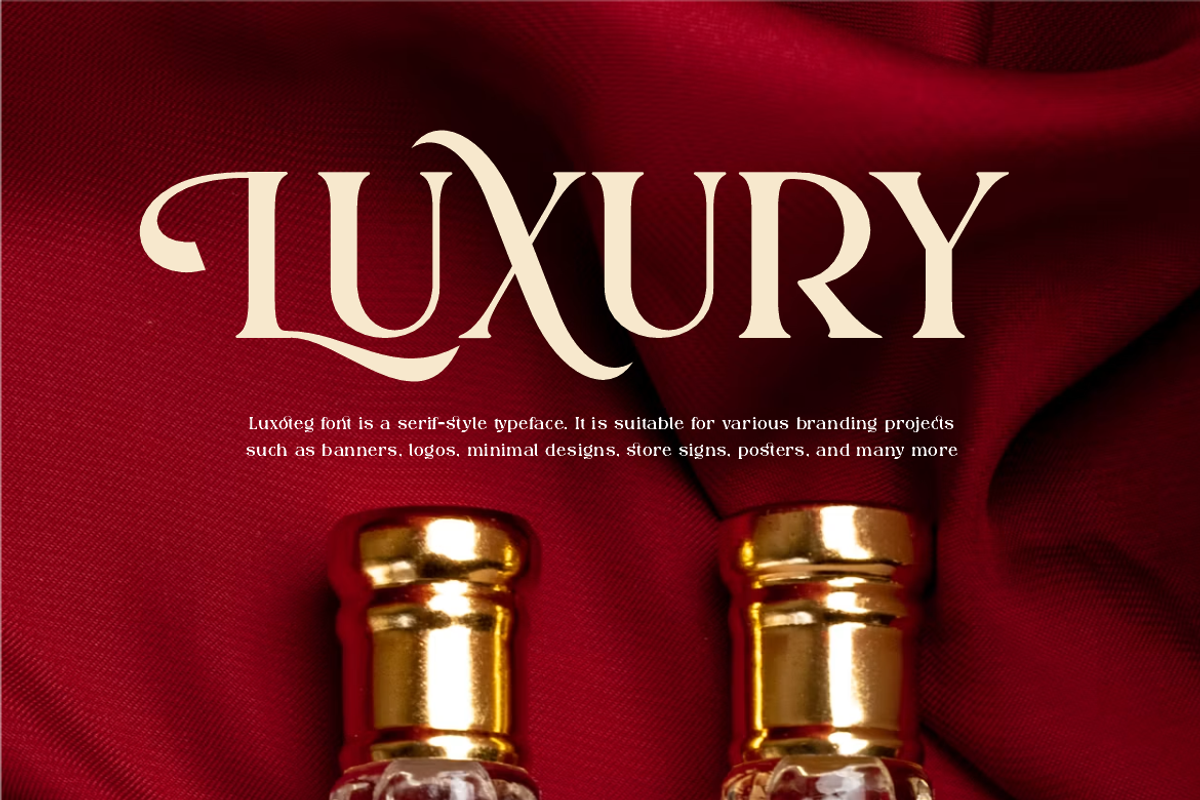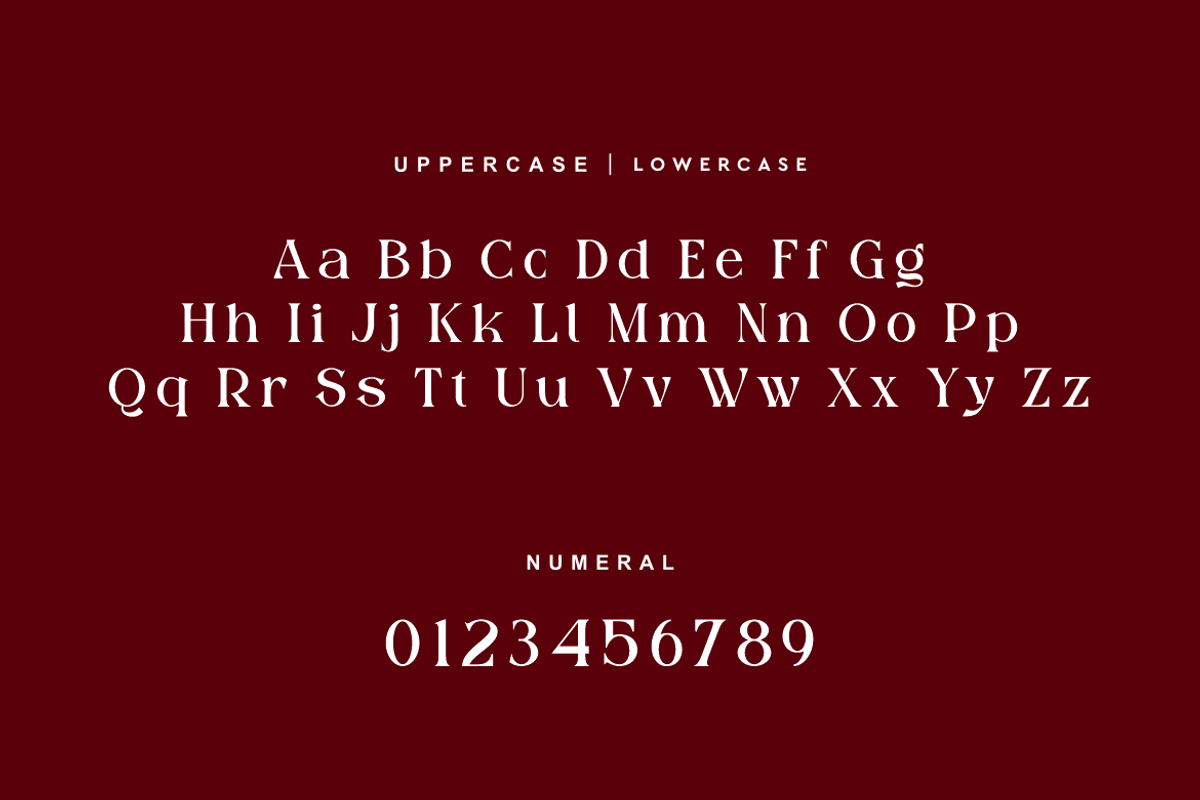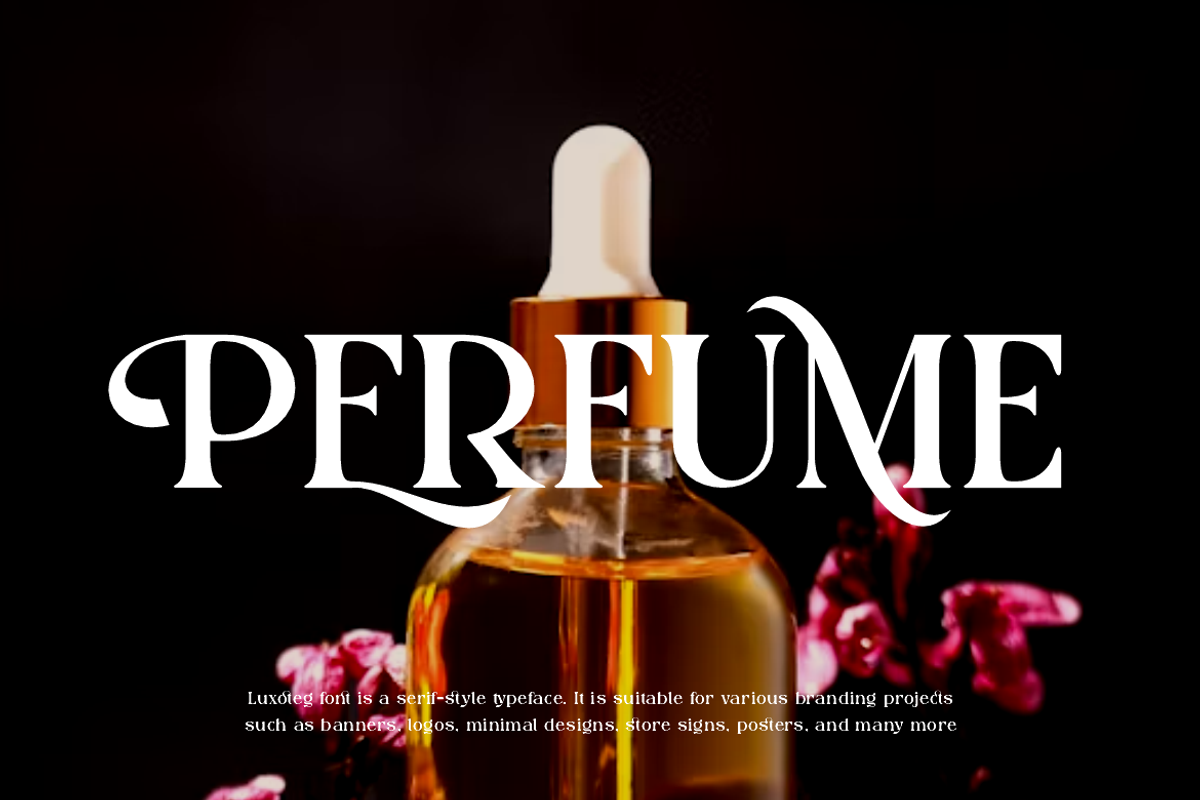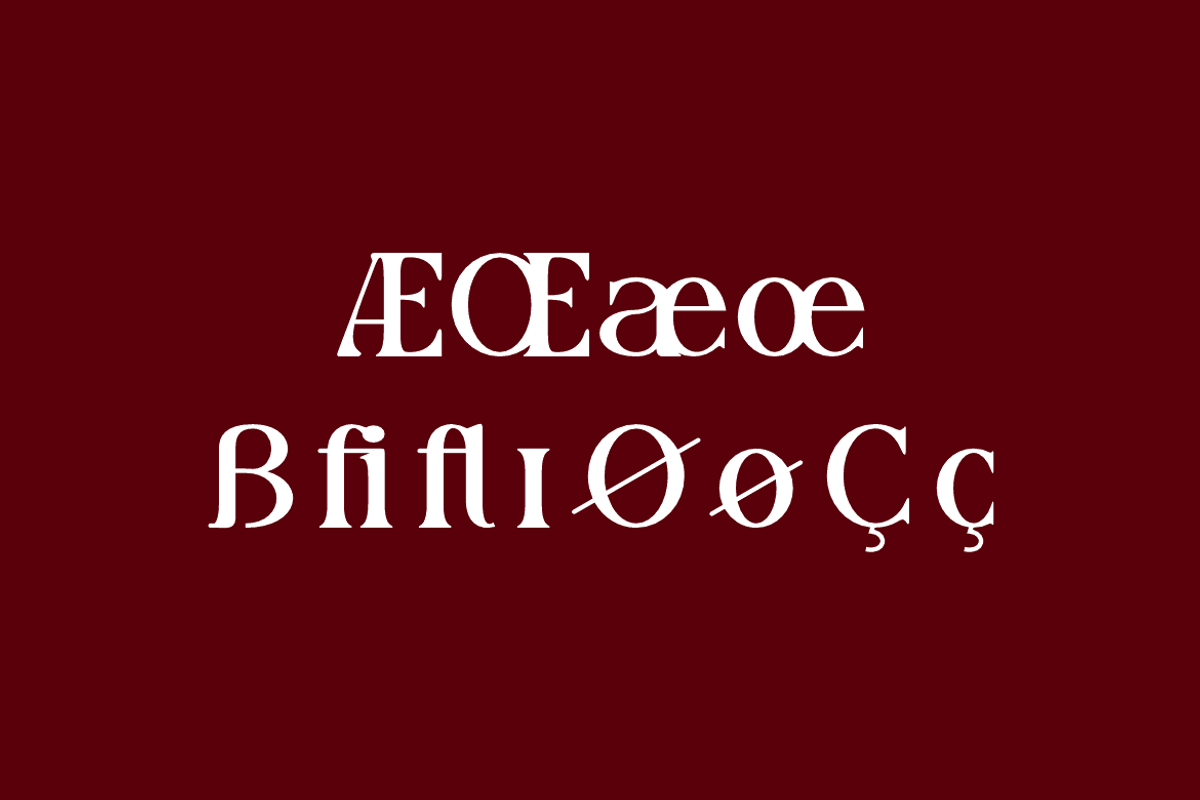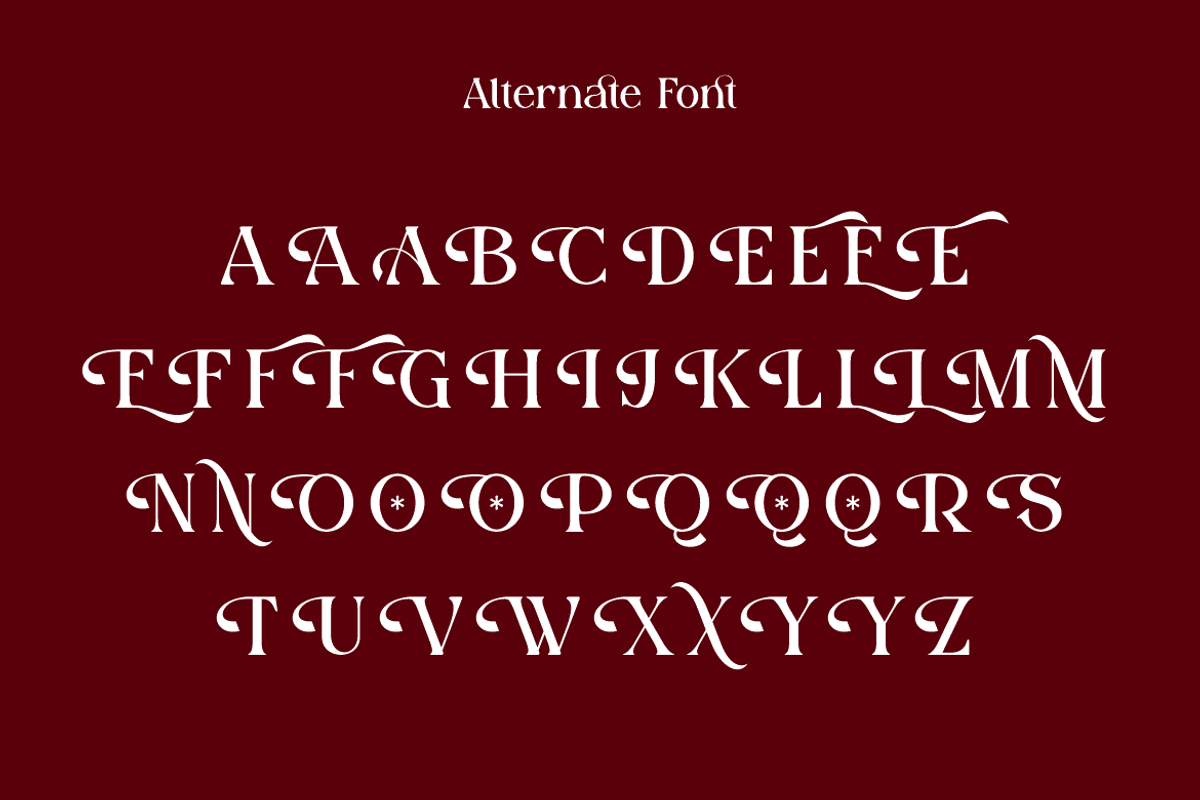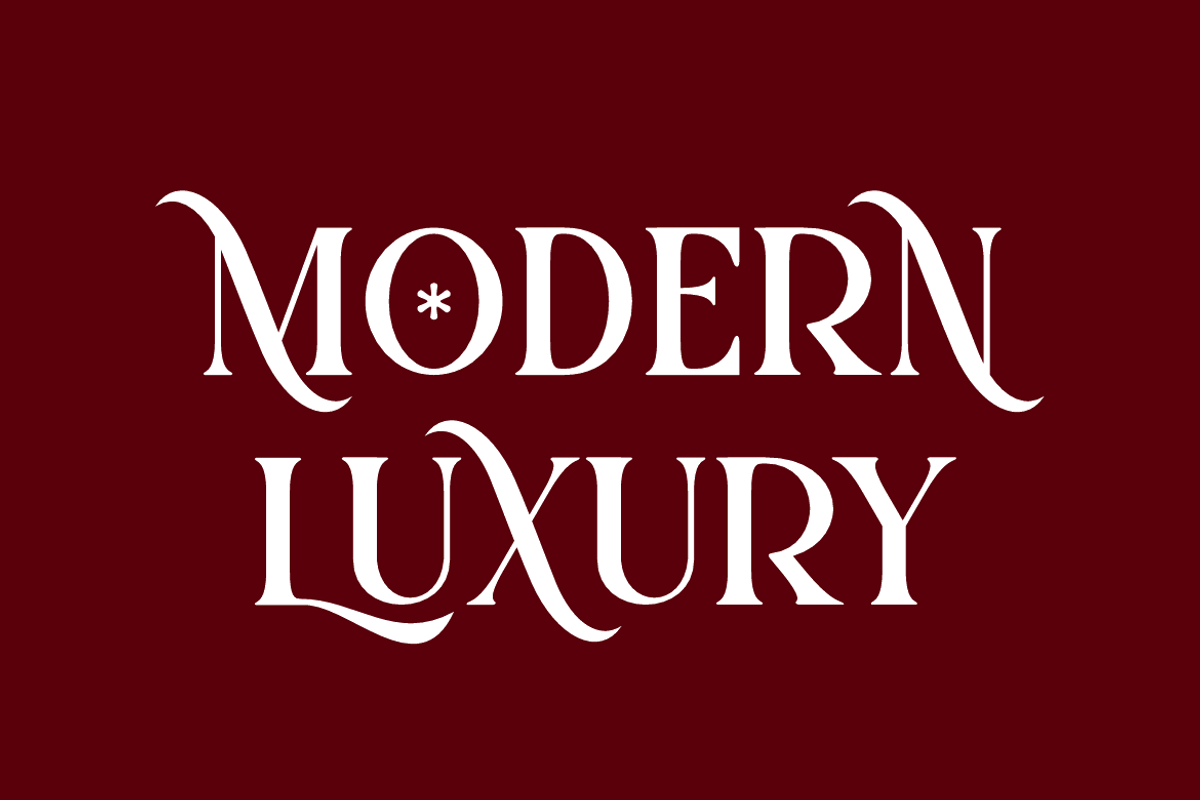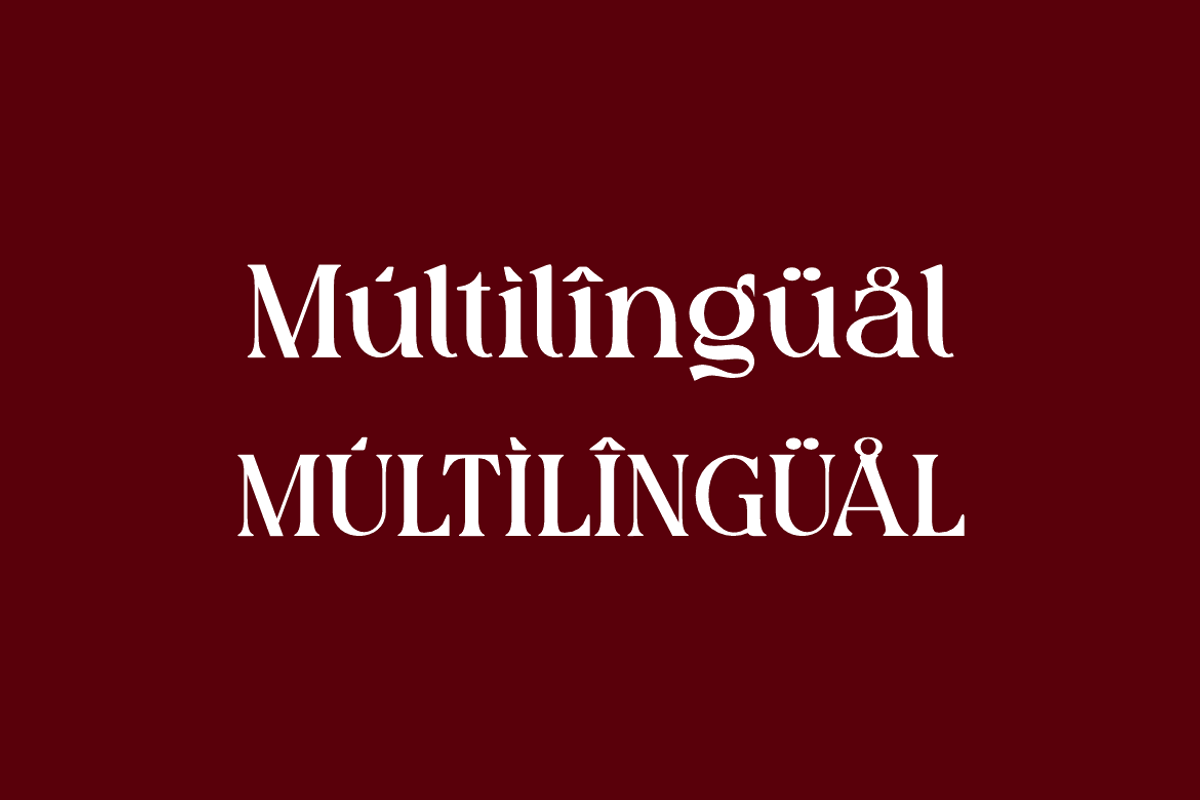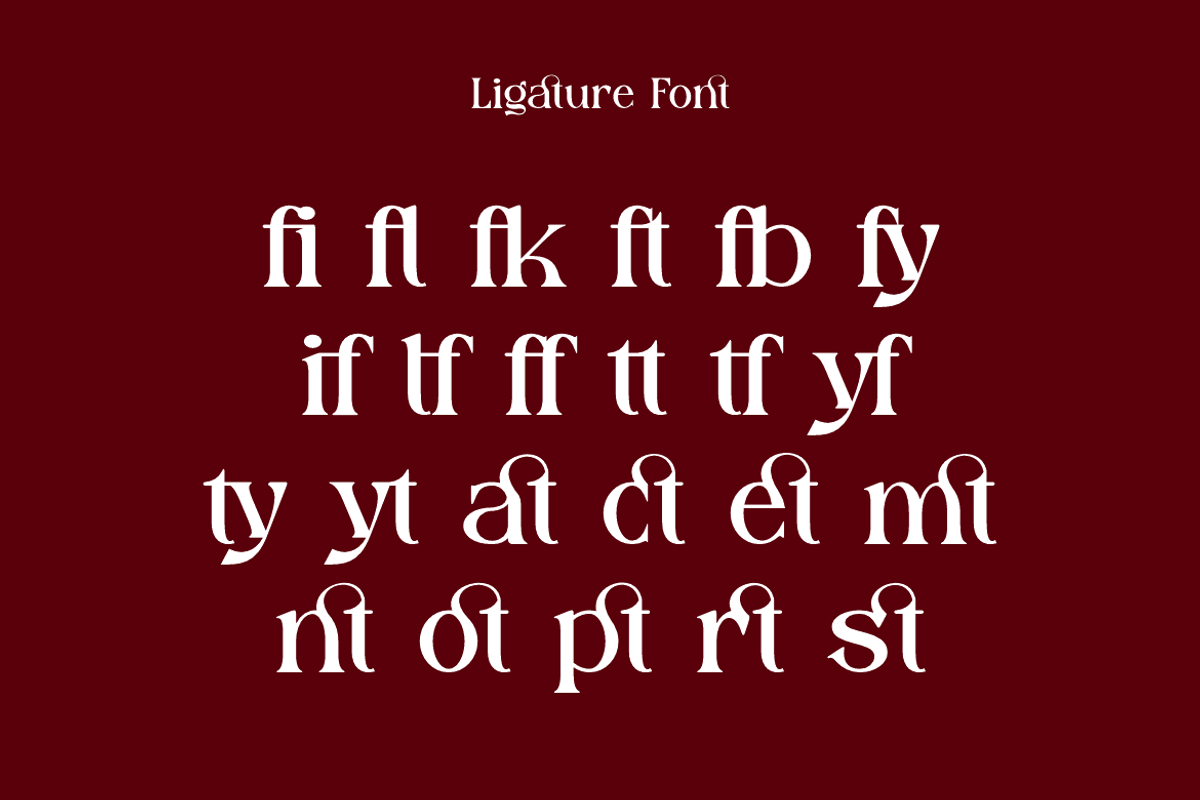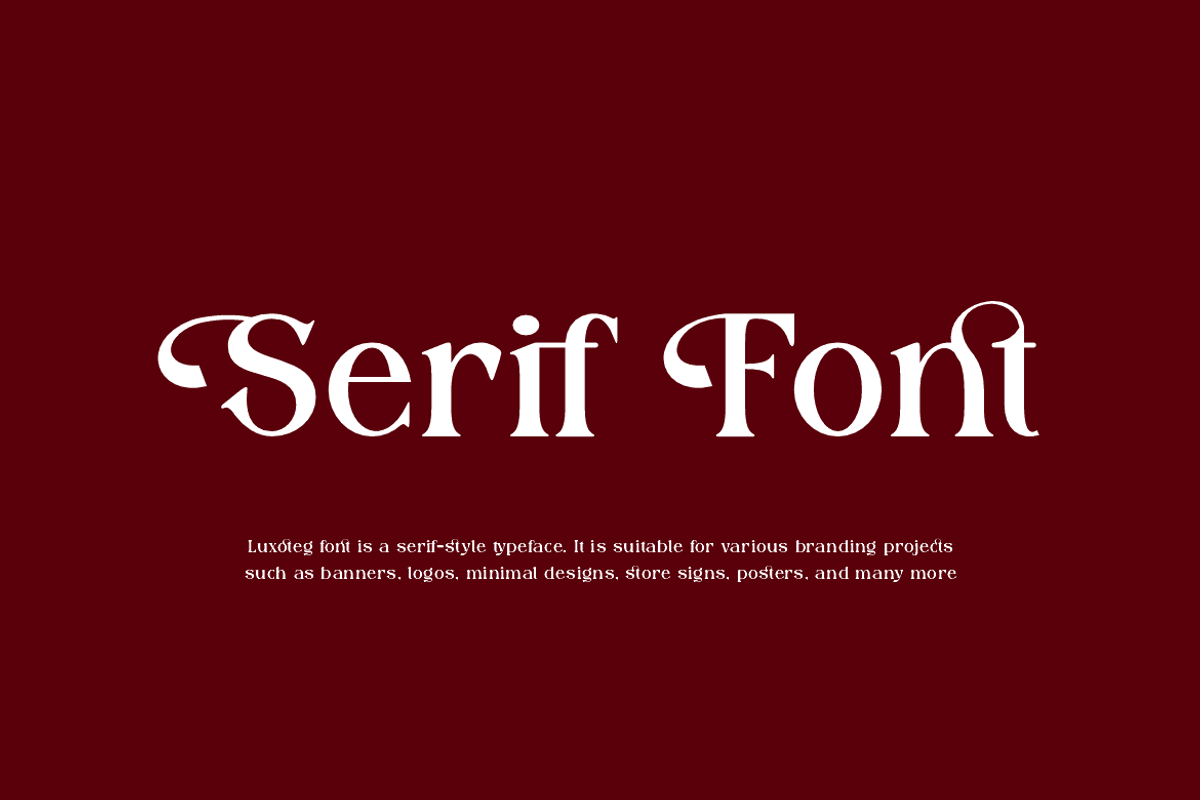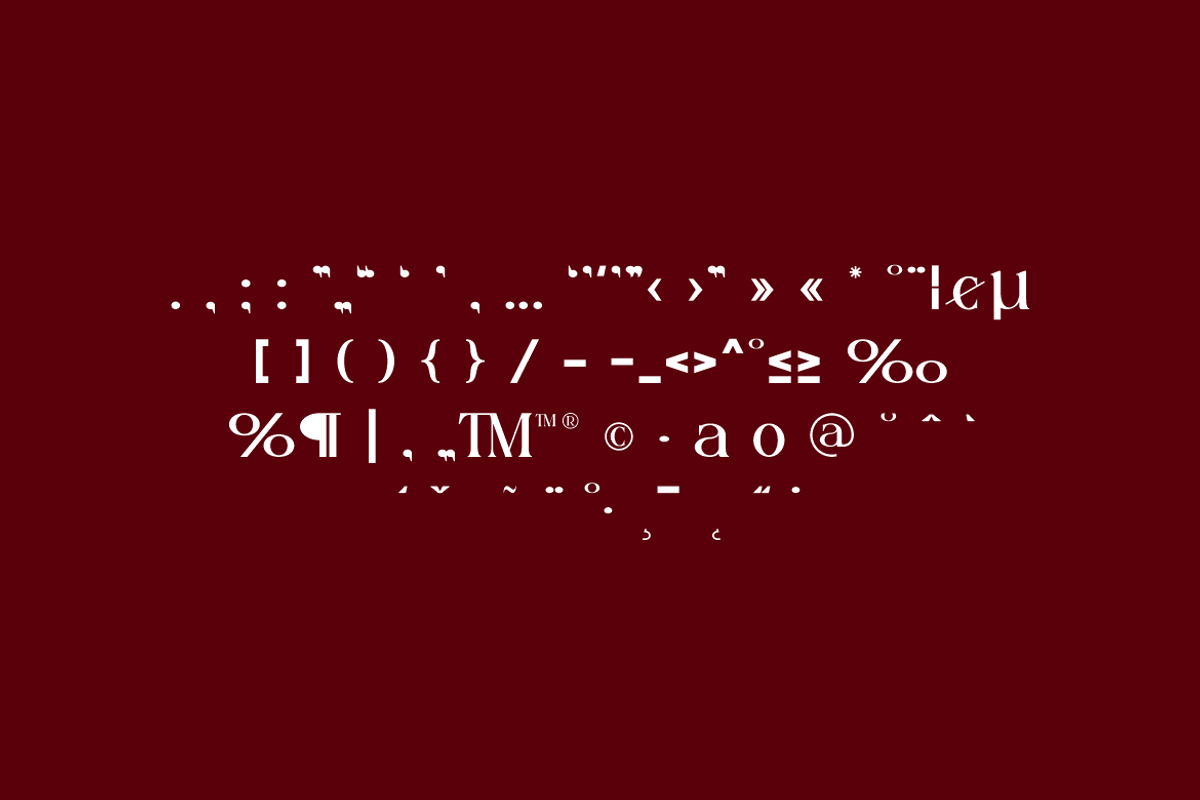
Luxoteg - Luxury Perfume Font
Luxoteg Font is a serif and authentic display typeface.
It’s perfect for various branding projects such as logos, modern designs,
and more. This font stands out beautifully in a wide range of contexts.